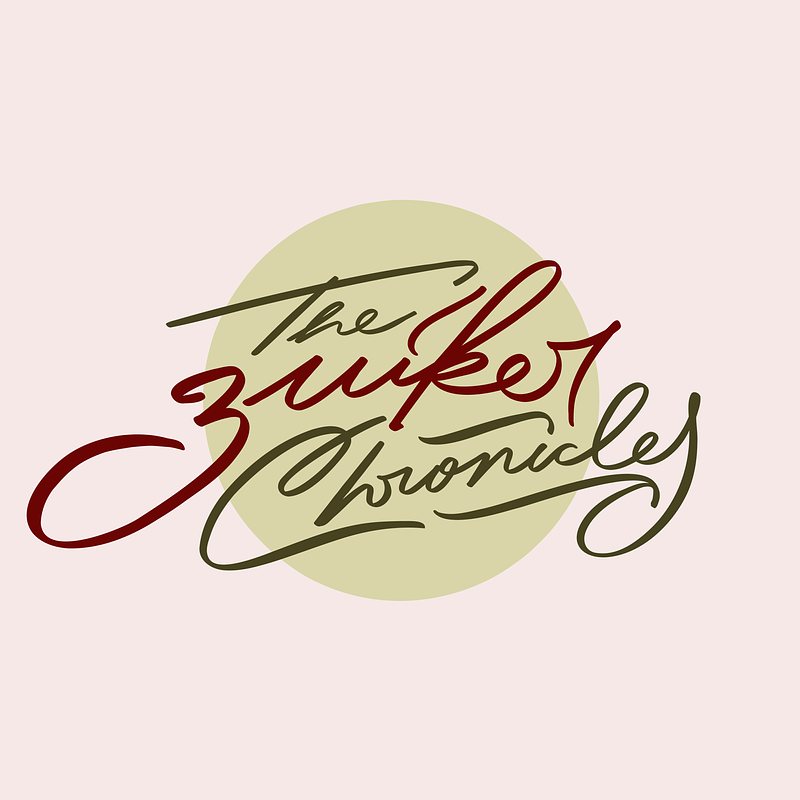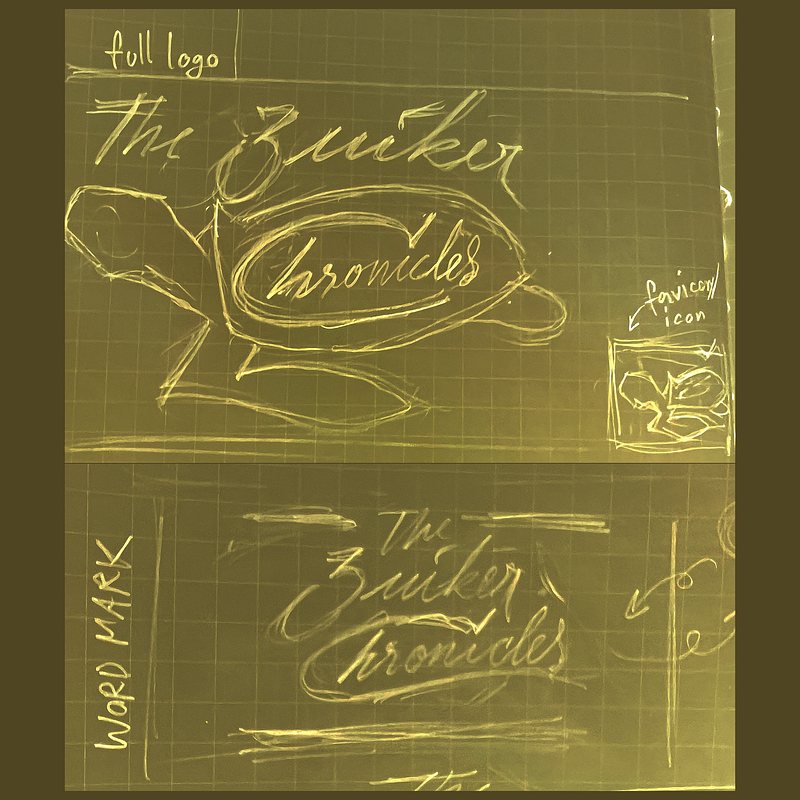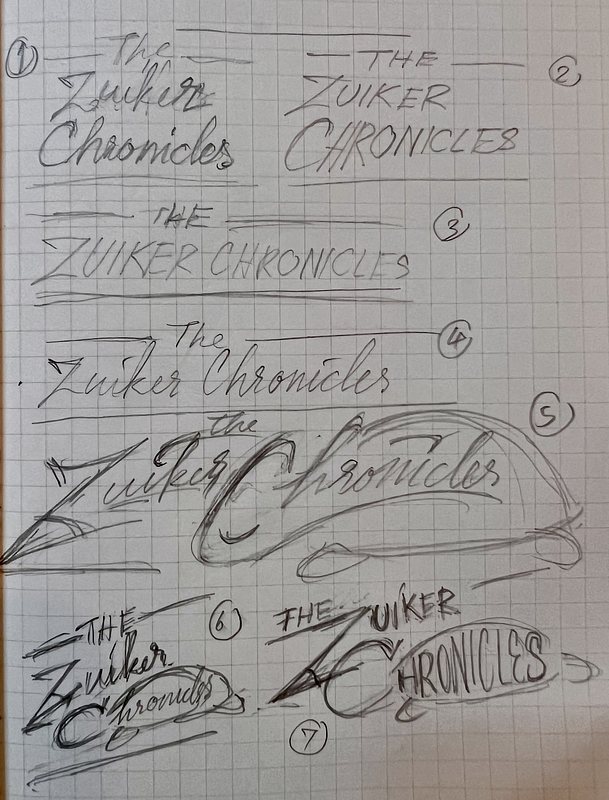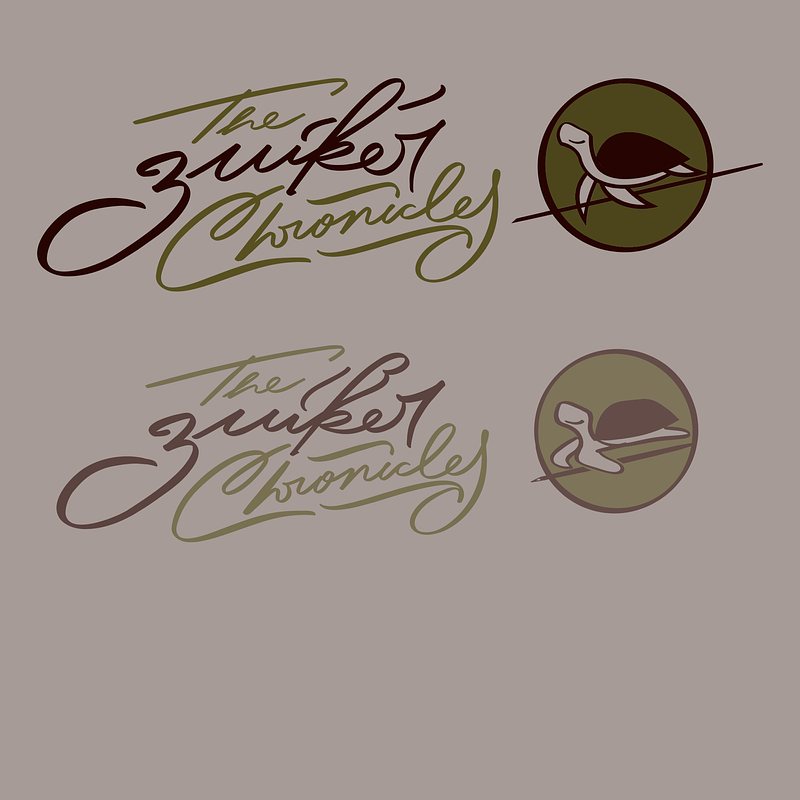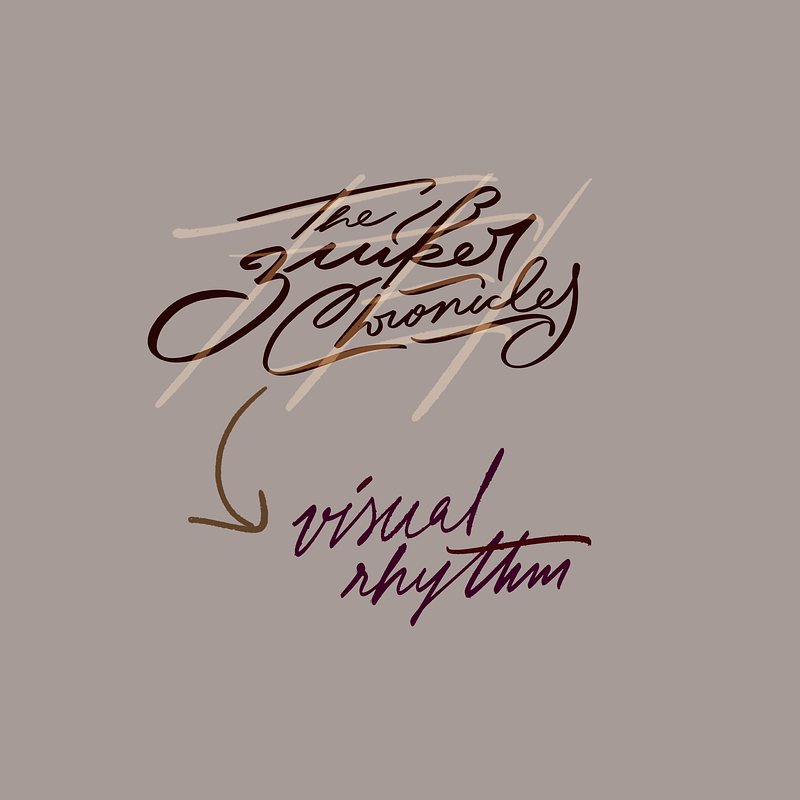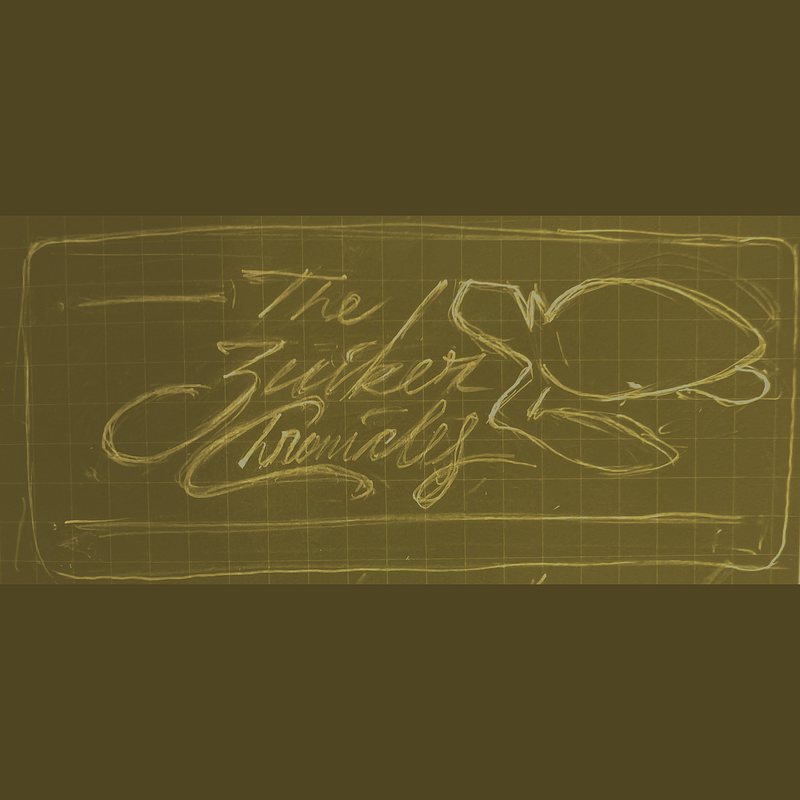
Anton Zuiker approached me for a
commission, after a referral from Pratik, my
comprehensive brief with references, which I greatly appreciated.
The Brief
The brief was straightforward: he wanted a logo for his personal
website that would also serve as his personal branding. He
requested a website header image incorporating both a wordmark
and an icon mark, as well as brand guidelines for colors and typography
to make it a complete branding package. For the icon, he chose
a turtle to reflect his love of nature and passion for
turtle photography.
He wanted the turtle to function as a favicon as well.
After reading the brief, I envisioned a clear direction for his brand.
His identity is deeply rooted in nature, family, and traditions.
The name "The Zuiker Chronicles" has been a family
legacy since his grandfather's time.
With nature as the central theme, I began forming ideas for the
commission. I immediately knew it should be a script logo with a
handwritten feel—my specialty. Natural colors
would be essential: primarily green, reflecting the turtle theme,
complemented by brown and touches of light yellow. A serif
font also seemed perfect for the typography.
The Vision: The visual brand identity can tell a story of who you are
After studying Anton's bio and blog posts to understand his identity and
visual branding better, I noticed a disconnection between his identity
and current branding more clearly. Moreover, his initial concept and
references, however, used red and black with a blocky sans-serif font,
were significantly different from my vision.
When client and designer visions diverge, it is crucial to align
them towards a cohesive direction—every design needs one clear
voice. I needed to assess how open he would be to exploring new
directions and approached these differences carefully.
Design directions for brandmark (The turtle)
My first step was to create multiple design directions to help
understand his preferences for both the icon and wordmark.
Often, clients' stated preferences shift when they see actual
designs, so offering a variety of options was essential to finding a
clear visual direction.
Design directions for wordmark.
Fortunately, he proved to be very open-minded and considered my
suggestions thoughtfully. Once I understood his preferences (E, G, 5, 6,
7), which helped steer us toward a clear vision, I could better cater to
his taste.
The Wordmark: Preserve the legacy
a Zuiker tattoo based on his grandfather's signature.
I discussed the concept of a hand-lettered wordmark, and he provided
samples of his grandfather's signature and a journal entry as reference
material for the logotype. These pieces were a valuable addition to the
project, and I felt personally connected with the project more deeply.
A beautiful journal entry he provided for me as a handwritten sample.
I carefully analyzed each letterform in the handwriting samples, noting
variations and selecting the best elements to compose a cohesive
wordmark.
The first drafts of The Zuiker Chronicles
My first digital draft for th wordmark
I considered integrating the "C" in "Chronicles" as a turtle's head.
However, after sketching this concept, I realized it did not align with
the brand vision that well. Consequently, I focused on creating
a signature-like logo with harmonious rhythm in every
line and stroke.
The visual rhythm for both vertical and horizontal lines
My aim was to seamlessly blend his grandfather's
handwriting style with my interpretation while maintaining a consistent
rhythm throughout the letters and lines. The logo required
flowing horizontal and vertical rhythms, reflecting the subtle flow of
nature.
The final design for the Wordmark of The Zuiker Chronicles
The Turtle: a turtle that smiles at you
The carving turtle
Anton also provided a sea turtle carving from his home as a reference
material. Although I initially drafted a design based on it, the result
felt a little bit wrong for what I actually envisioned.
The first draft of the turtle
The failed attempt in capturing the brand essence
This prompted me to refine my approach. I researched numerous turtle
logos and vector styles, seeking fluid line movements that could
capture the essence of a turtle without appearing too rigid or
childish.
Some reference of turtle designs
After several hours, I also had the insight to incorporate a pencil into
the turtle design, adding a narrative element of Anton’s passion for
writing with pencils.
The first brainstorming session for the turtle
I really liked the idea of a turtle that smiles at you, making the logo
unique and friendly, so I tried to lean on this idea.
backgrounds with warm red hues. Light green evokes
natural landscapes, while dark green mirrors the turtle’s
shell, and rich red-brown tones capture the essence of
autumn. Together, they create a meaningful composition that
narrates the story of "The Zuiker Chronicles" through color.
The whole brand identity now conveys friendliness while
remaining true to nature, traditions, and history—a modern
interpretation of Anton's "The Zuiker Chronicles" legacy.
The dark background version of The Zuiker Chronicles